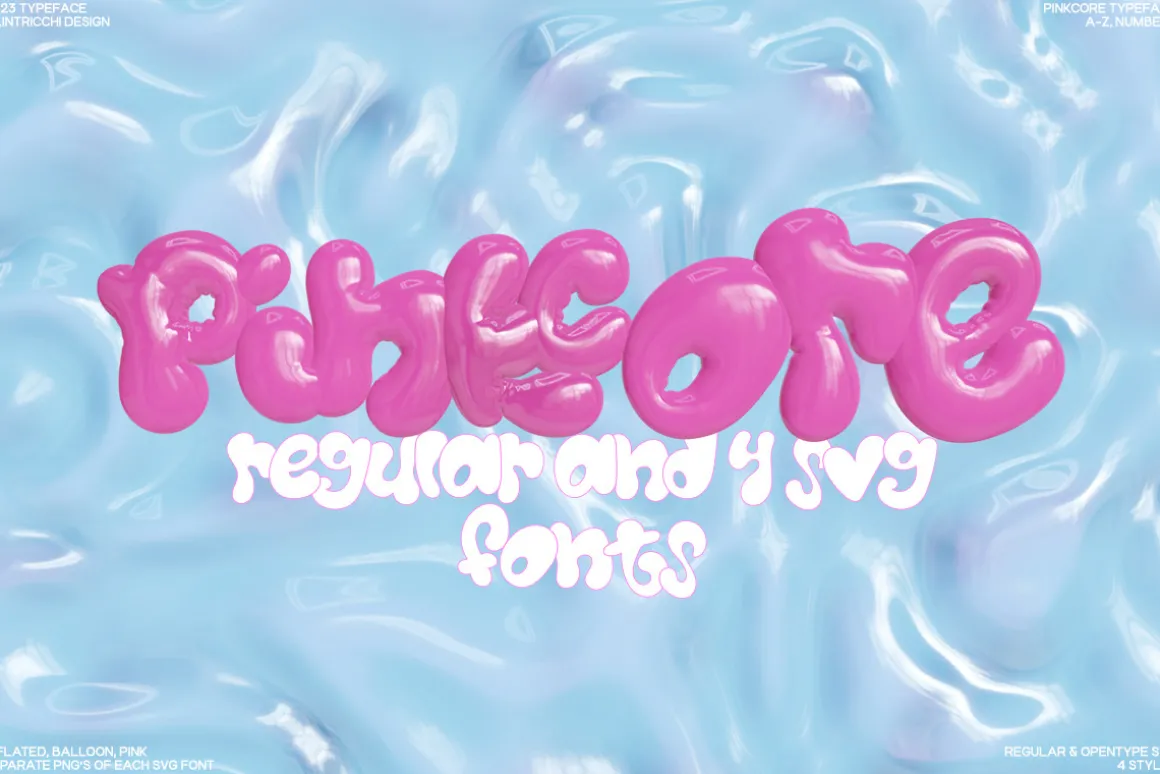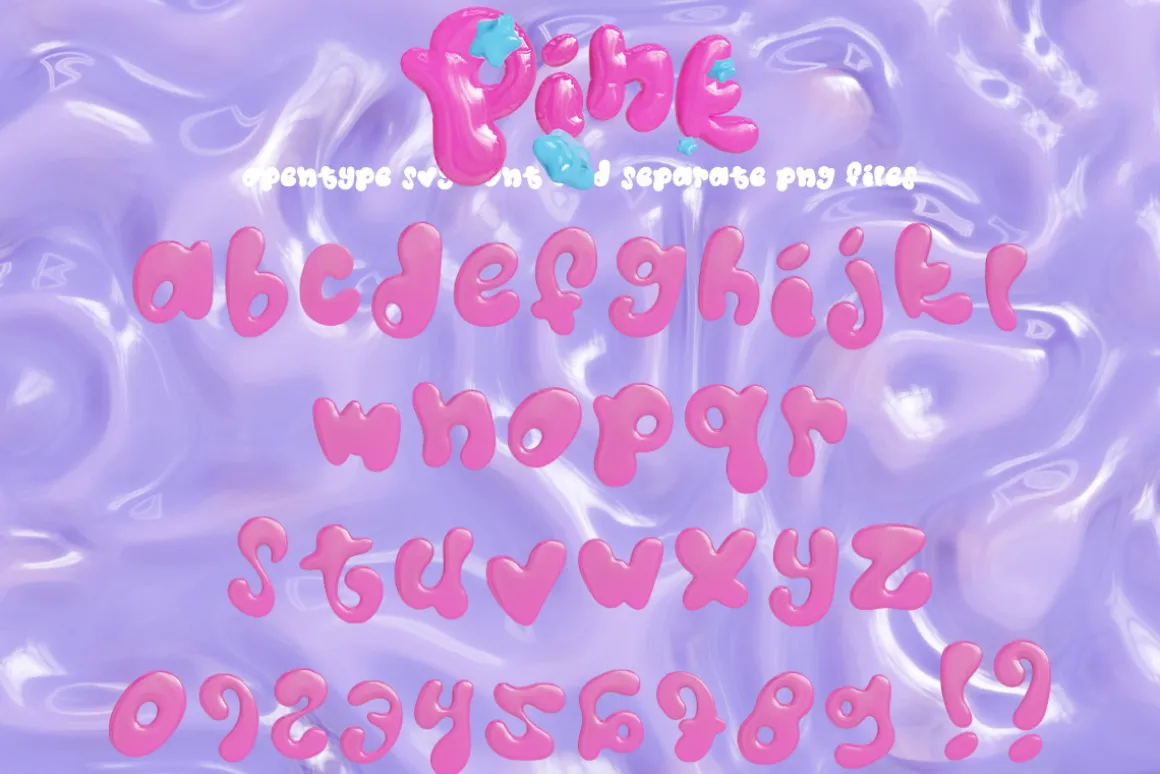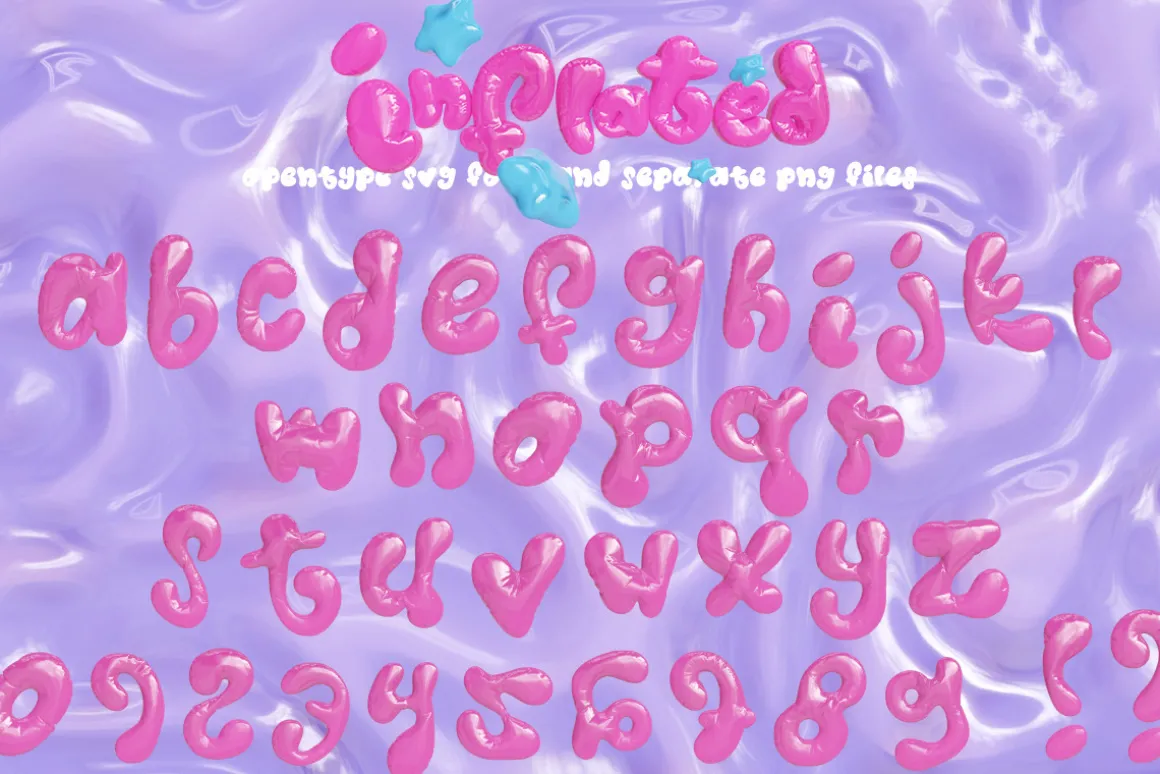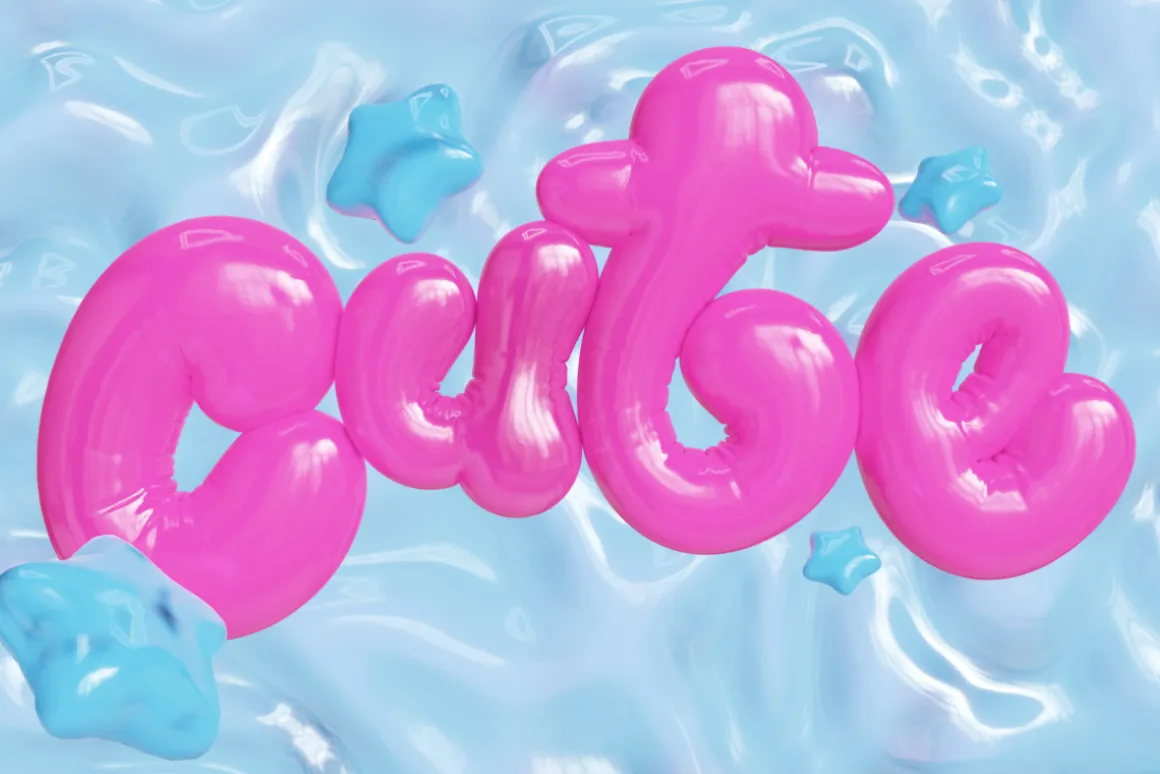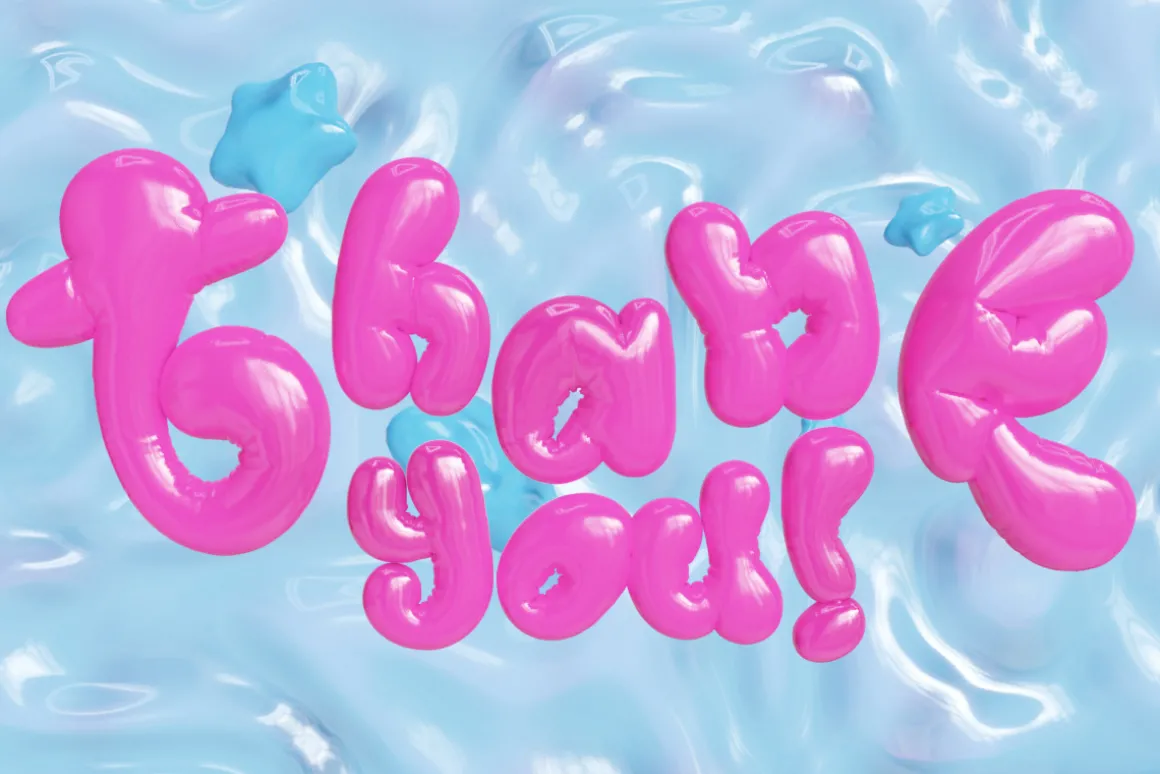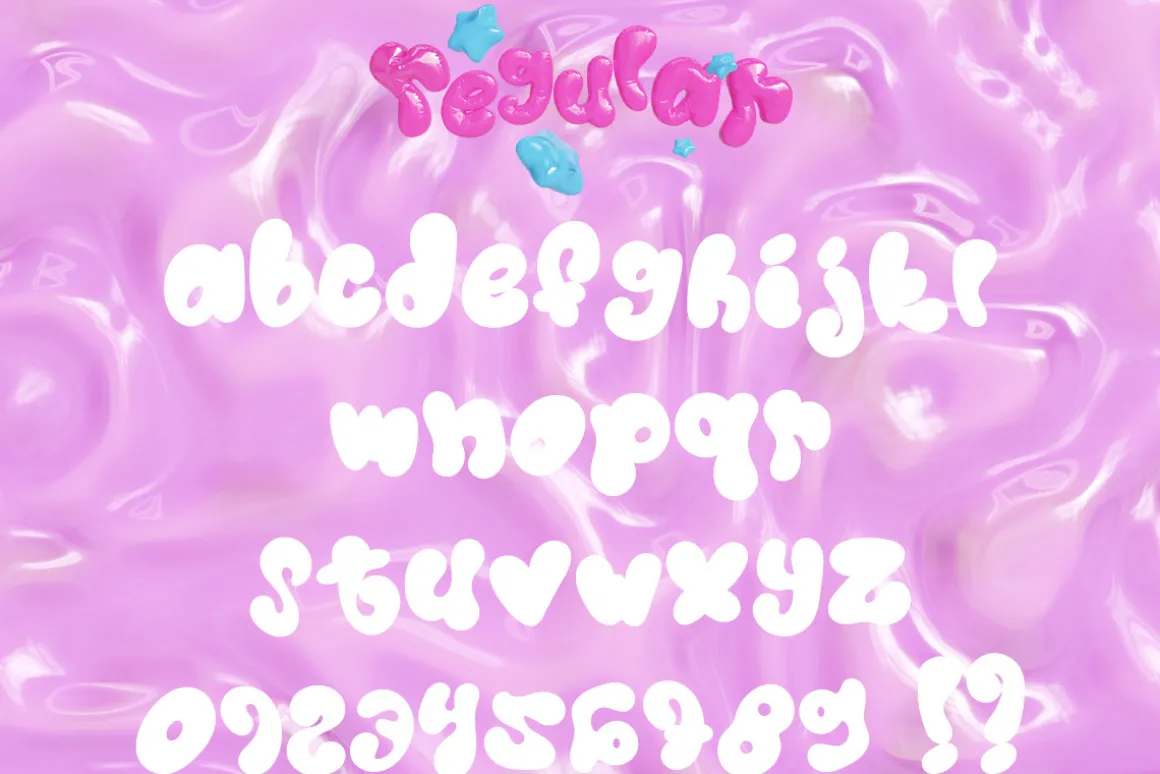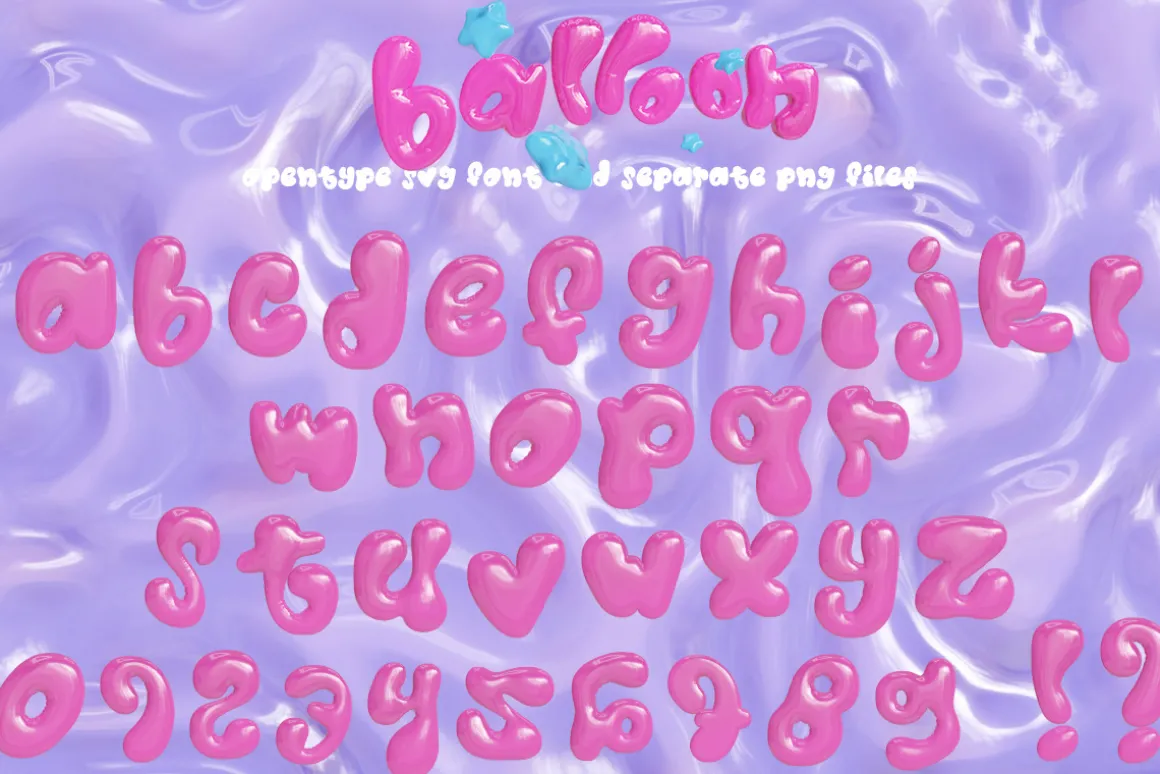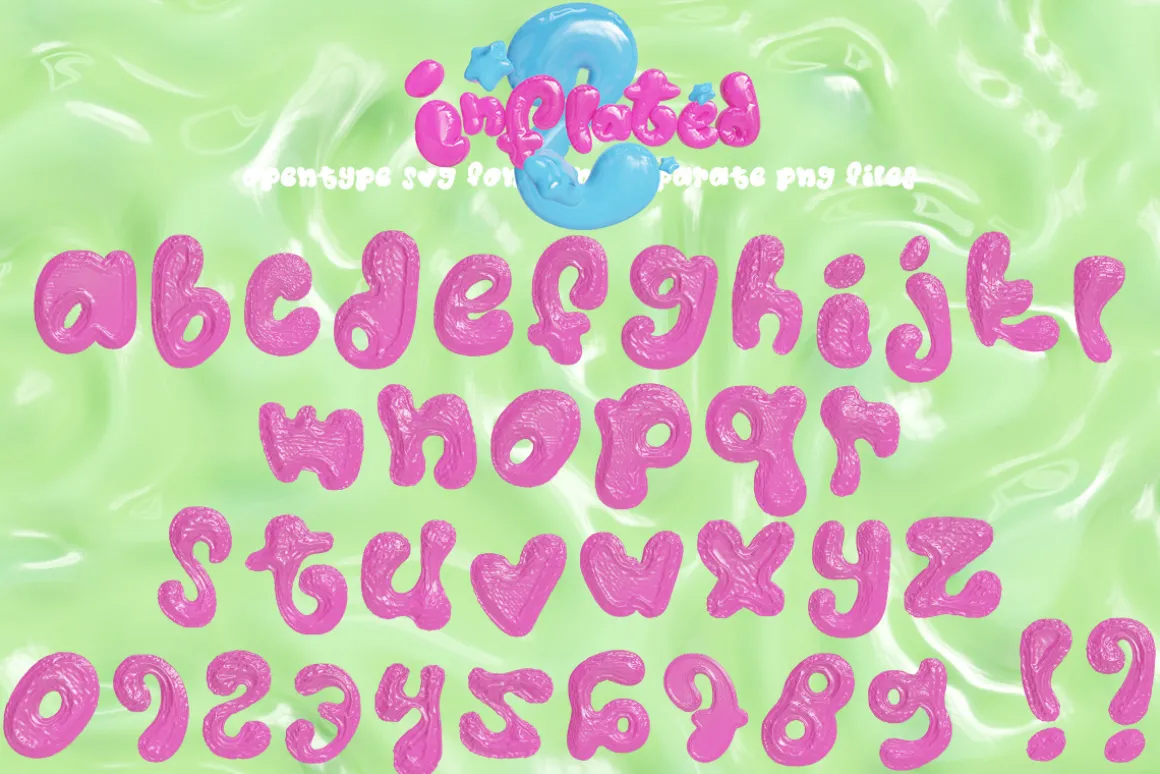
Introducing Pinkcore!
Inflated Styles: Embrace the playfulness of Pinkcore’s inflated styles that add a touch of fun and extravagance to your projects. Whether you’re designing invitations, posters, or social media graphics, these stylishly bold letters will make your text pop like never before!